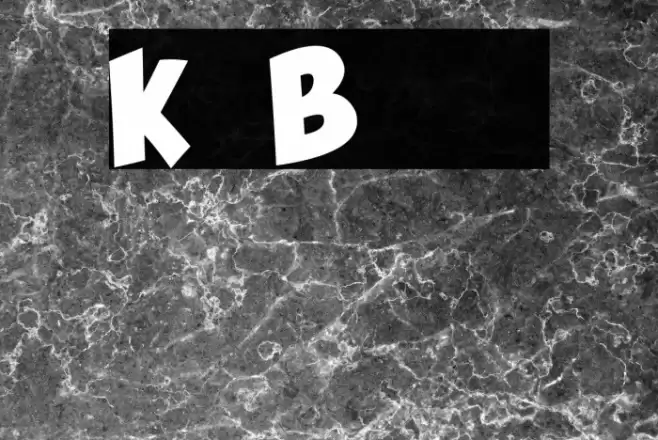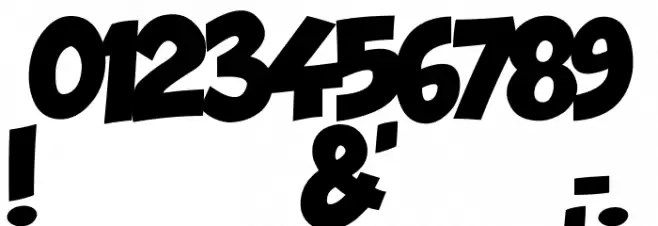
Ka Blam Font
Ka Blam Description
This bold and dynamic font features exaggerated, playful letterforms with a strong comic book influence. The characters are thick and robust, with a slightly irregular baseline that adds to its energetic and informal style. The font's boldness is consistent throughout, with wide, rounded curves and sharp angles that create a sense of movement and excitement. The uppercase letters are particularly striking, with a strong presence that demands attention. The numbers and special characters maintain the same lively and bold characteristics, making this font ideal for eye-catching designs.
A bold, playful font with a comic book style and dynamic letterforms from Comic fonts.
- Proposed Projects: Ideal for comic books, children's books, posters, and playful branding projects.
- Overall Style: Playful, Energetic, Comic
- Use Case: Headlines, Posters, Branding